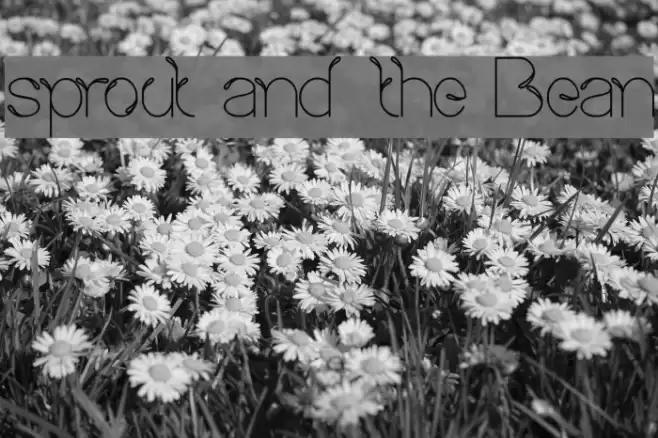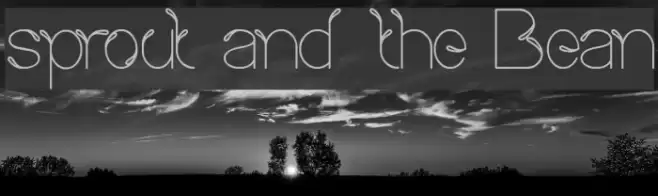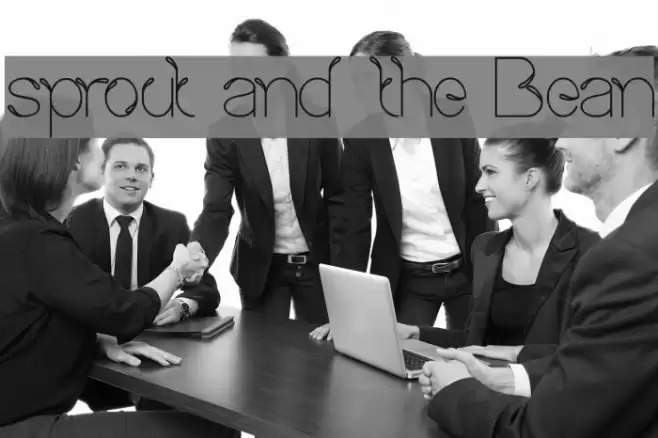
sprout and the Bean Font
sprout and the Bean Description
This font features a unique and whimsical design, characterized by its thin, elegant lines and playful curves. Each letter is adorned with delicate, vine-like extensions that give it an organic and natural feel. The overall appearance is airy and light, with a modern twist that adds a touch of sophistication. The font maintains a consistent stroke width throughout, creating a harmonious balance between each character. Its distinctive style makes it stand out, offering a fresh and creative approach to typography.
- Proposed Projects: Ideal for nature-themed branding, eco-friendly product packaging, whimsical invitations, and artistic posters.
- Use Case: Logos, Headlines, Artistic projects